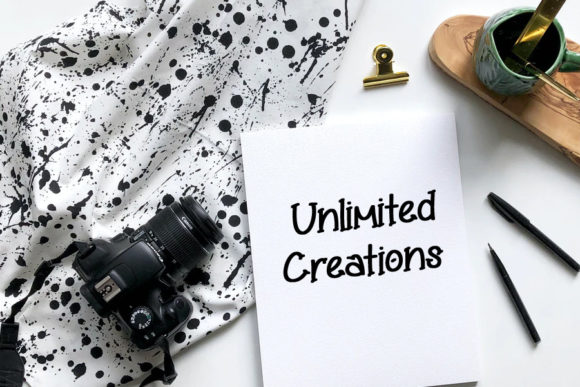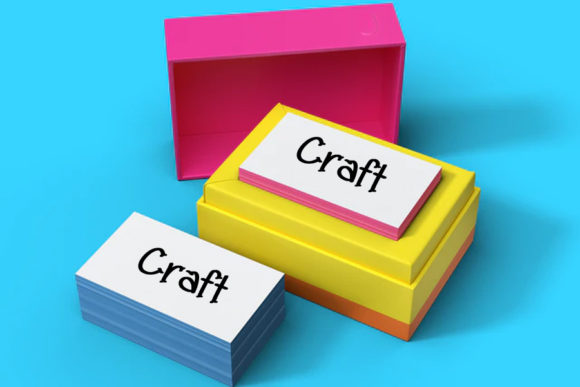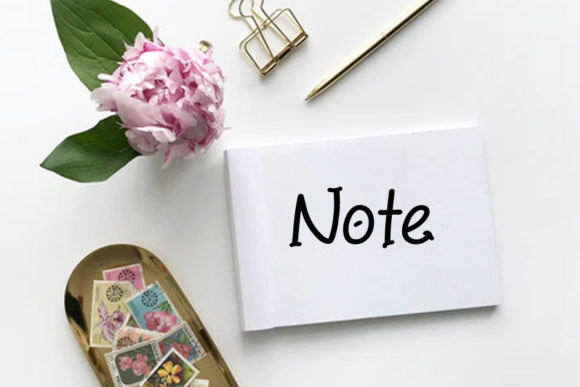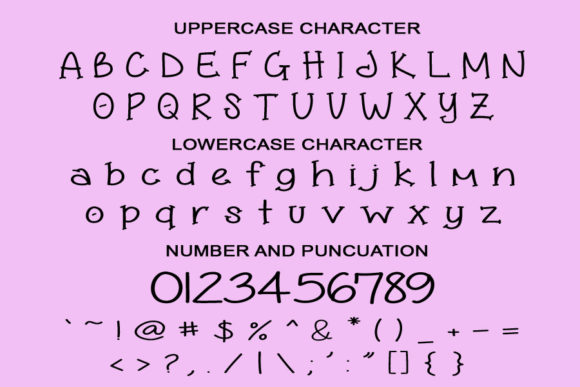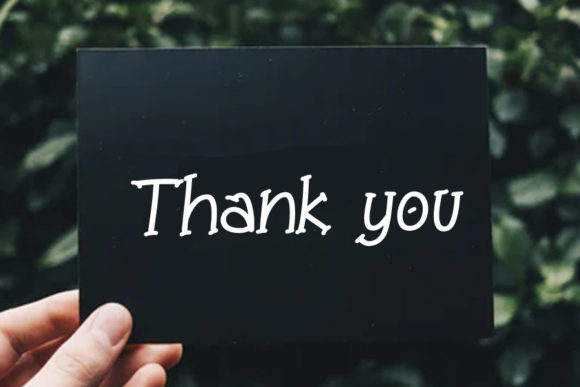
Introduction to Hello Komodo Font
Remember that moment when you stumbled upon the perfect font for your creative project? The one that instantly transports you to a world of endless possibilities and sparks your imagination? For designers, finding the right font can be a game-changer, and today we’re excited to introduce you to a hidden gem that’s about to become your new best friend: the Hello Komodo Font.
This simple, quirky, and adaptable handwritten font is the perfect companion for any creative endeavor that requires a relaxed touch. With its informal style and casual vibe, the Hello Komodo Font is sure to bring a smile to your face and make your design projects shine. Whether you’re working on a free download or a high-quality design resource, this font is the perfect addition to your toolkit.
Hello Komodo Font
- Unique, bold, and modern font style suitable for headings and titles
- Perfect for digital design, graphic design, and print design projects
Honest Review: Hello Komodo Font
As a designer, I’m always on the lookout for high-quality design resources that can elevate my creative projects. Recently, I stumbled upon the Hello Komodo Font, and I must say it’s been a game-changer for me.
Here are some things that I think work really well about this font:
- ✨ High-quality design: The font has a clean and modern look that’s perfect for a variety of creative projects.
Of course, no design resource is perfect, and there are some limitations to consider:
- ⚠️ Limited customization options: While the font is beautiful, it’s not as customizable as some other fonts I’ve worked with.
- ⚠️ Not ideal for very large text: I’ve found that the font can get a bit pixelated when used for very large text, which can be a problem for some projects.
Overall, I’m really impressed with the Hello Komodo Font, and I think it’s a great addition to any designer’s toolkit. With a little creativity and experimentation, I’m confident that you can achieve amazing results with this font.
Hello Komodo Font
The Hello Komodo Font is commonly used in graphic design, logo creation, and branding. Its high-quality design and transparent background make it perfect for creating professional-looking graphics and logos.
Hello Komodo Font Alternatives
The Alex Brush Font is a high-quality, elegant script font perfect for creative projects that require a touch of sophistication. It’s ideal for use in invitations, wedding designs, and other special occasions where a refined look is desired.
Compared to Hello Komodo Font, Alex Brush Font has a more classic and timeless feel, making it a great choice for projects where a sense of tradition is important.
Carolyna Pro Font is a modern, high-quality font that’s perfect for designers working on creative projects that require a bold and eye-catching look. It’s ideal for use in social media graphics, logos, and other digital design elements.
Compared to Hello Komodo Font, Carolyna Pro Font has a more contemporary feel and a wider range of styles, making it a great choice for designers who want to add some edge to their projects.
The Great Vibes Font is a beautiful, high-quality script font that’s perfect for creative projects that require a fun and energetic vibe. It’s ideal for use in advertisements, social media graphics, and other marketing materials.